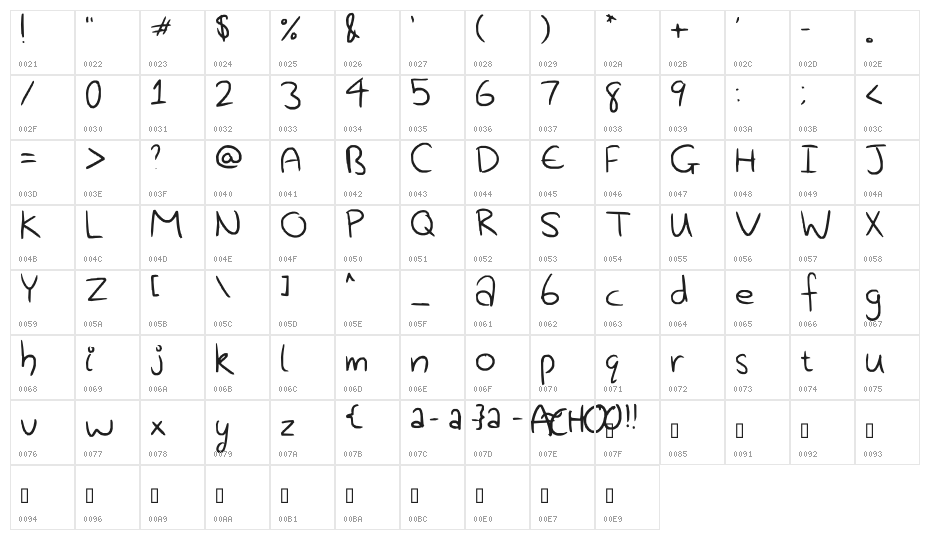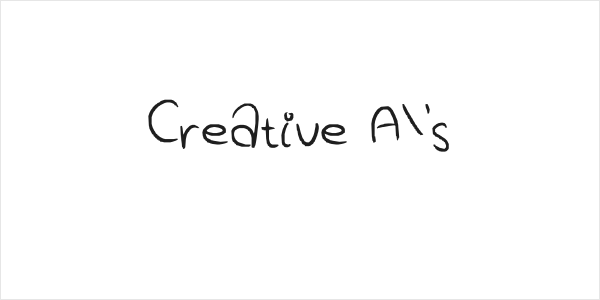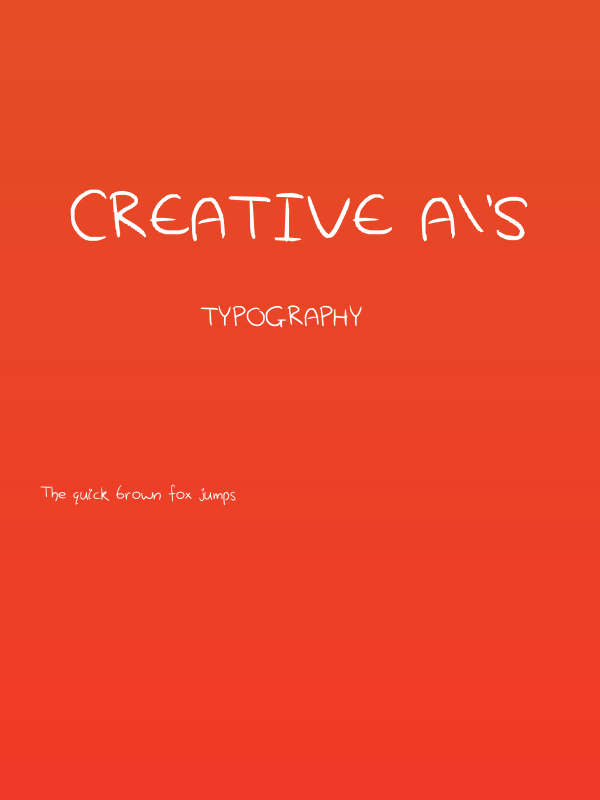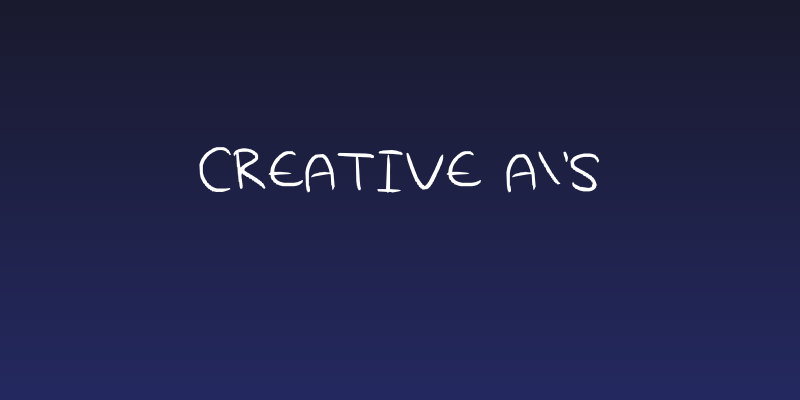
Creative A's Font
| Gesamtstil | Casual, Playful |
| Anwendungsfall | Headlines, Informal text, Creative projects |
| Vorgeschlagene Projekte | Ideal for children's books, greeting cards, casual invitations, and creative branding projects. |